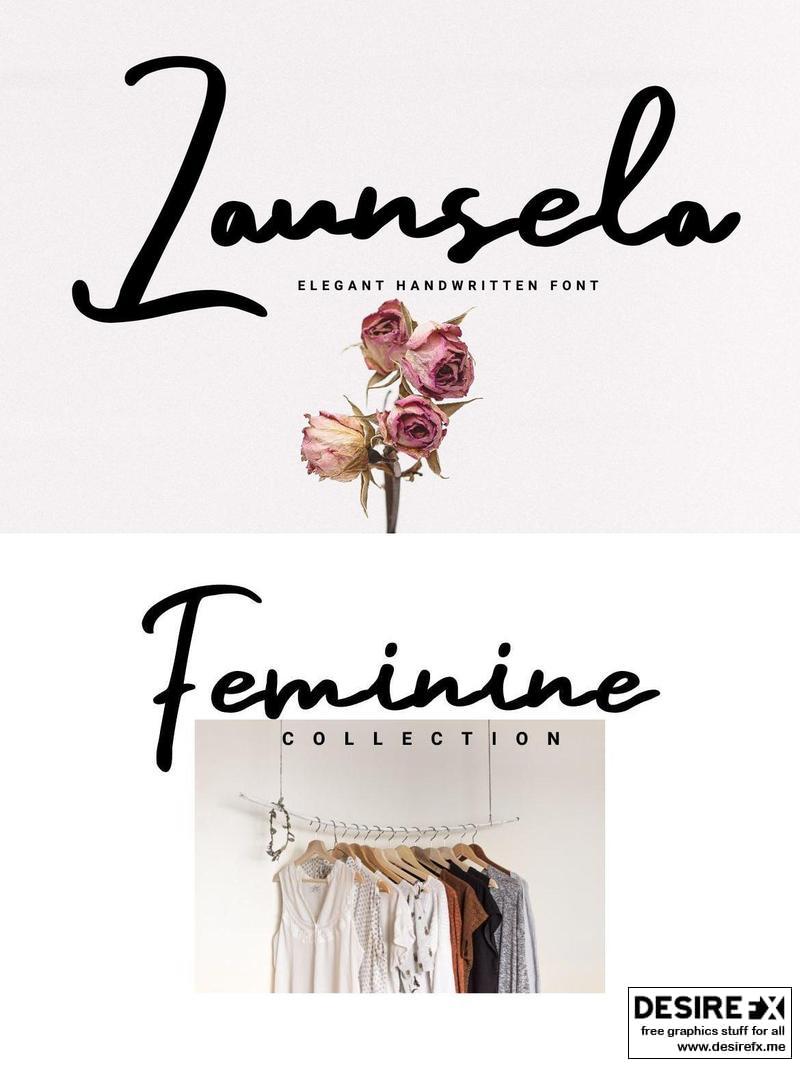
Launsela AF2LE2X
This elegant, minimalist and beautiful handwritten font can be applied in various print or digital media such as creative posts, business cards, wedding invitations, branding, photographer watermarks, logos and much more.